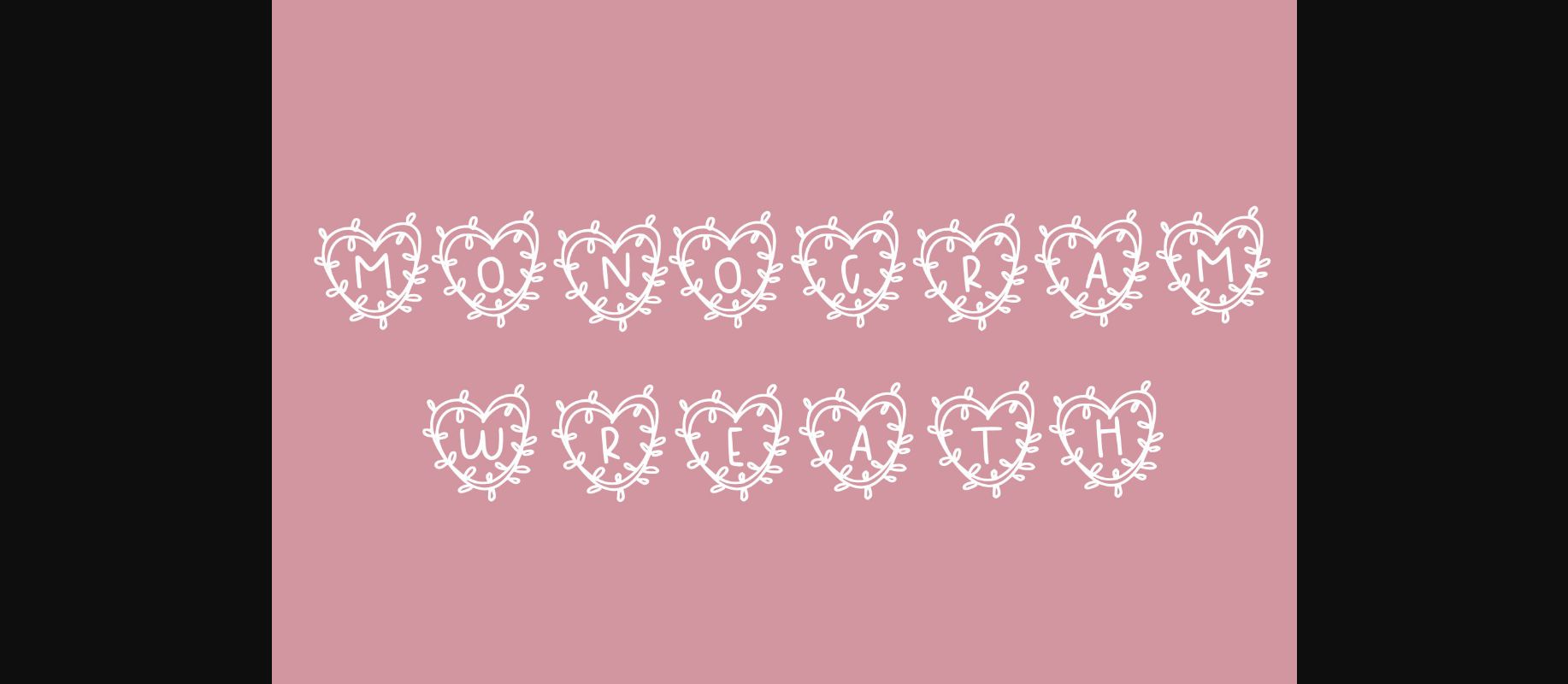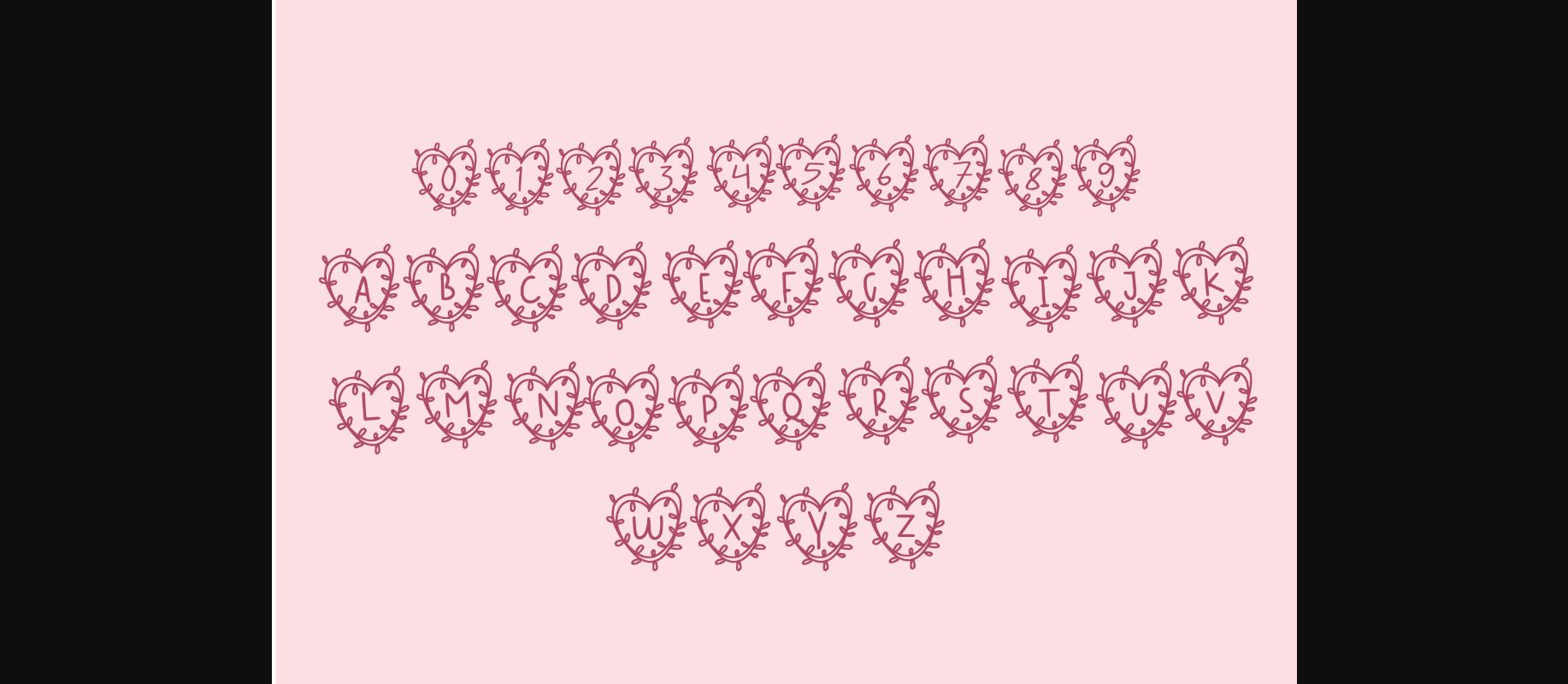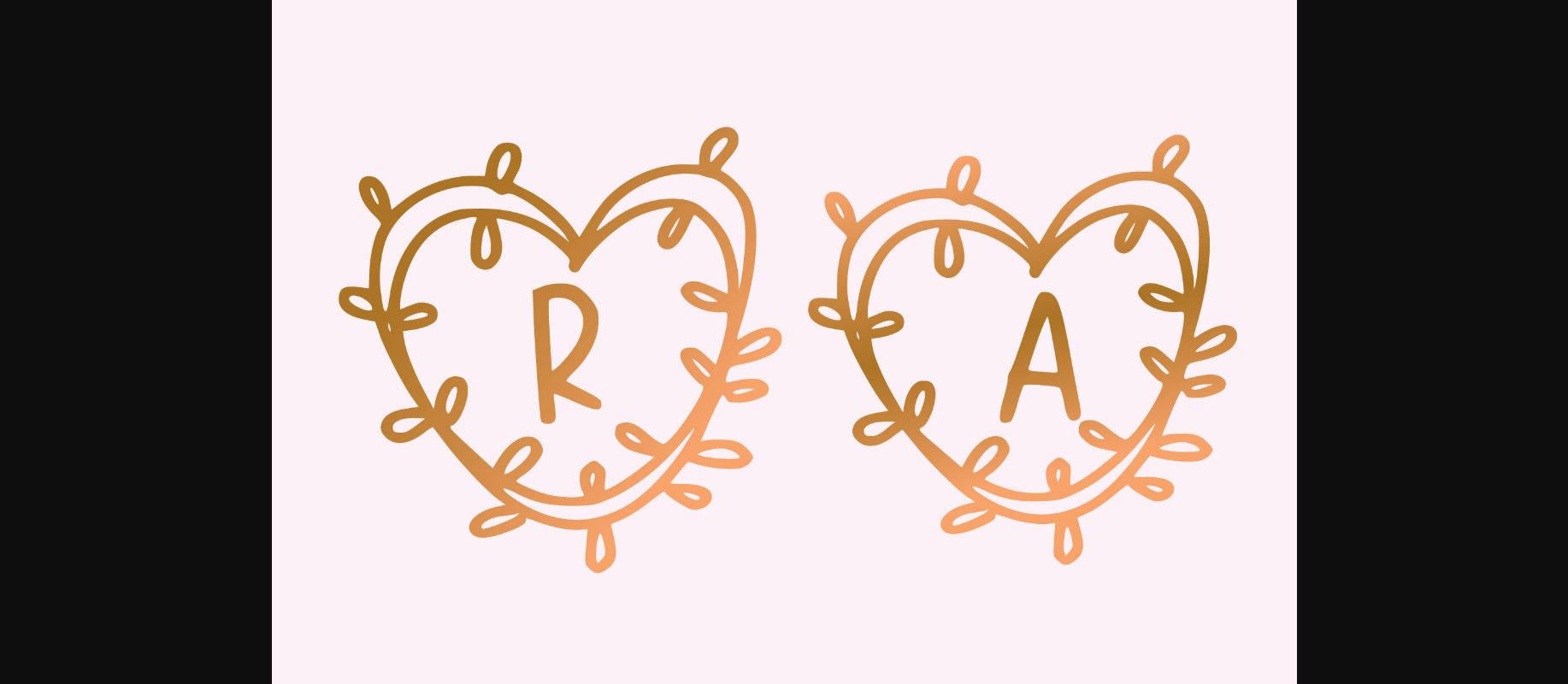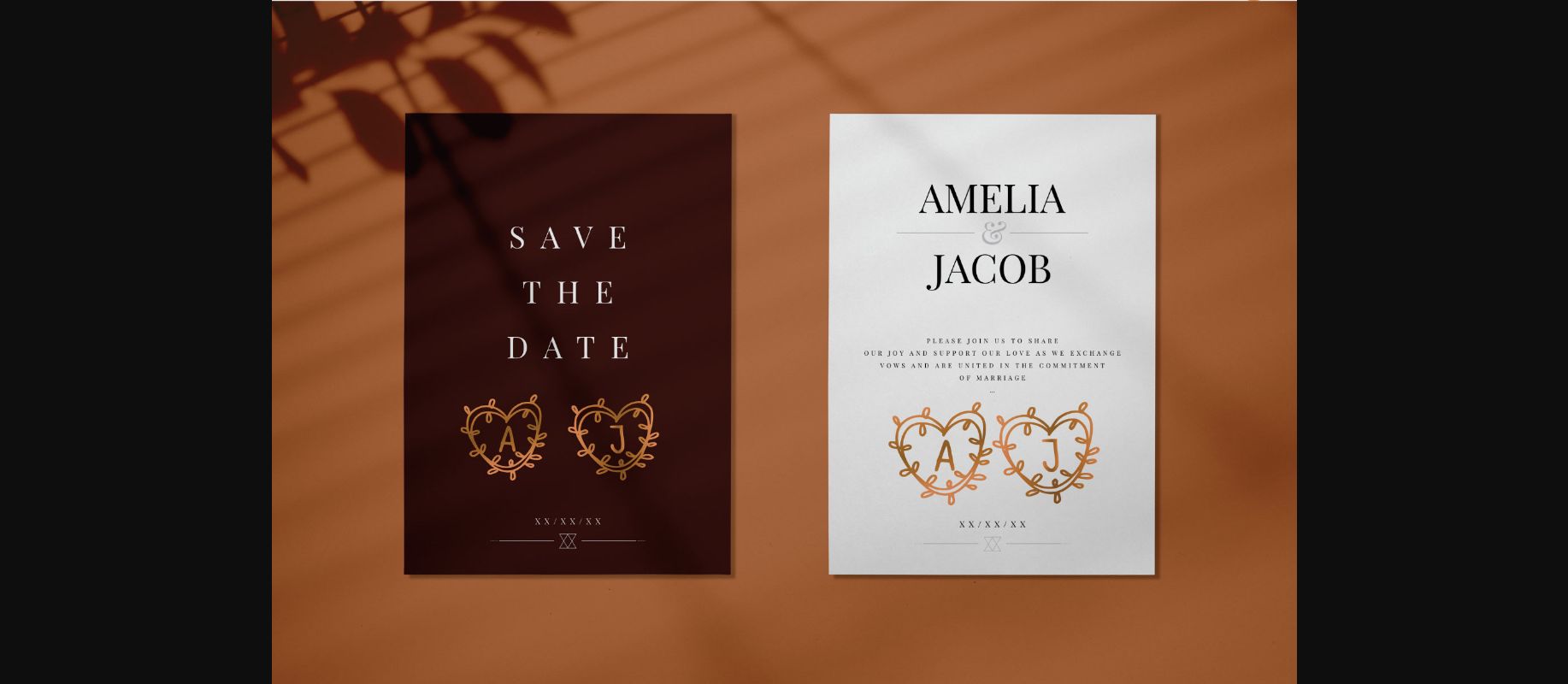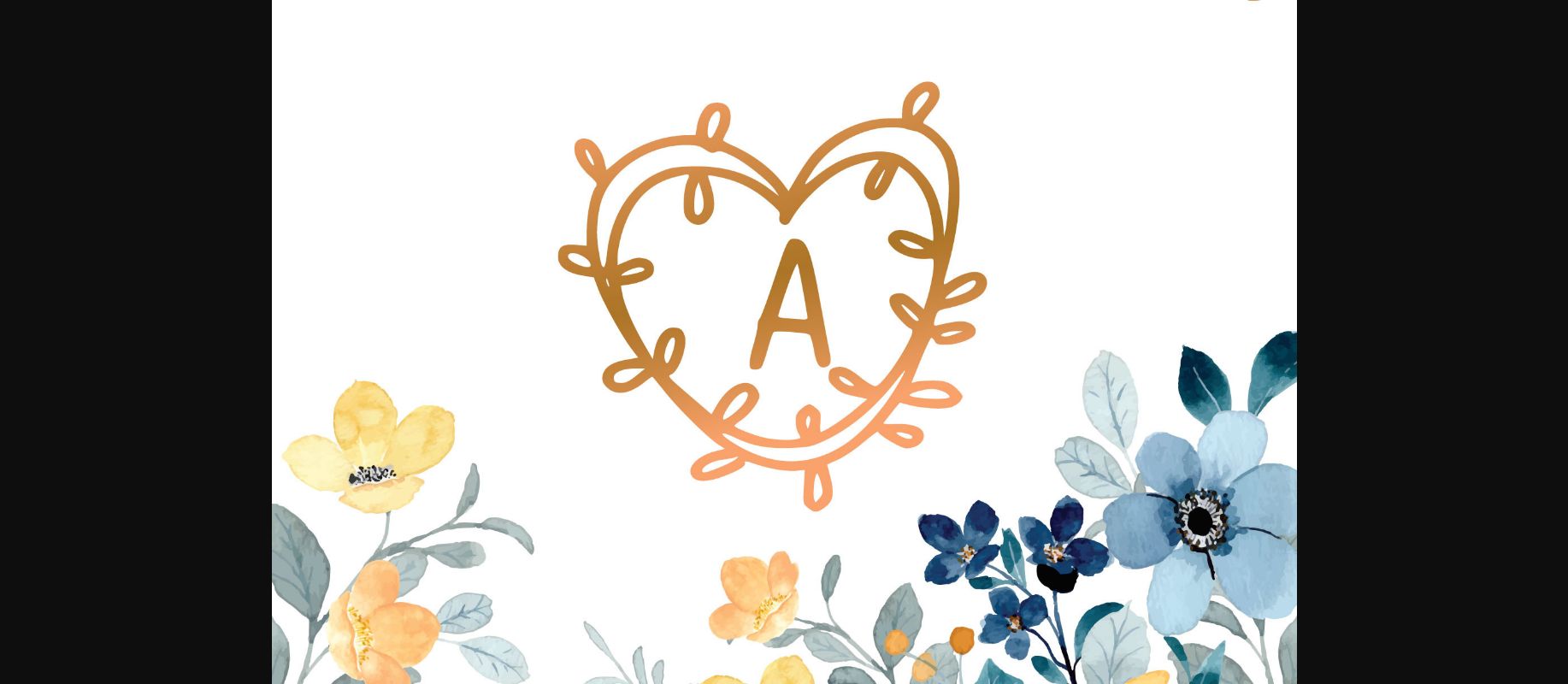
Wedding Monogram Dingbats Font
About Wedding Monogram Dingbats Font
Monogram Wreath is a dainty and unique decorative font. Add this romantic and lovely looking font to each of your love letters, wedding invitations or favorite design ideas, and you will be astounded by the outcome.